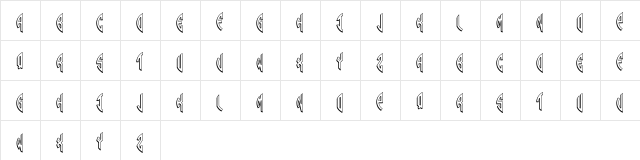
Round_3D_Monogram_Left Regular
Design Context for Round_3D_Monogram_Left Typeface
Round_3D_Monogram_Left uses fixed-width spacing throughout, giving it the structured, systematic character associated with coding environments and technical documentation.